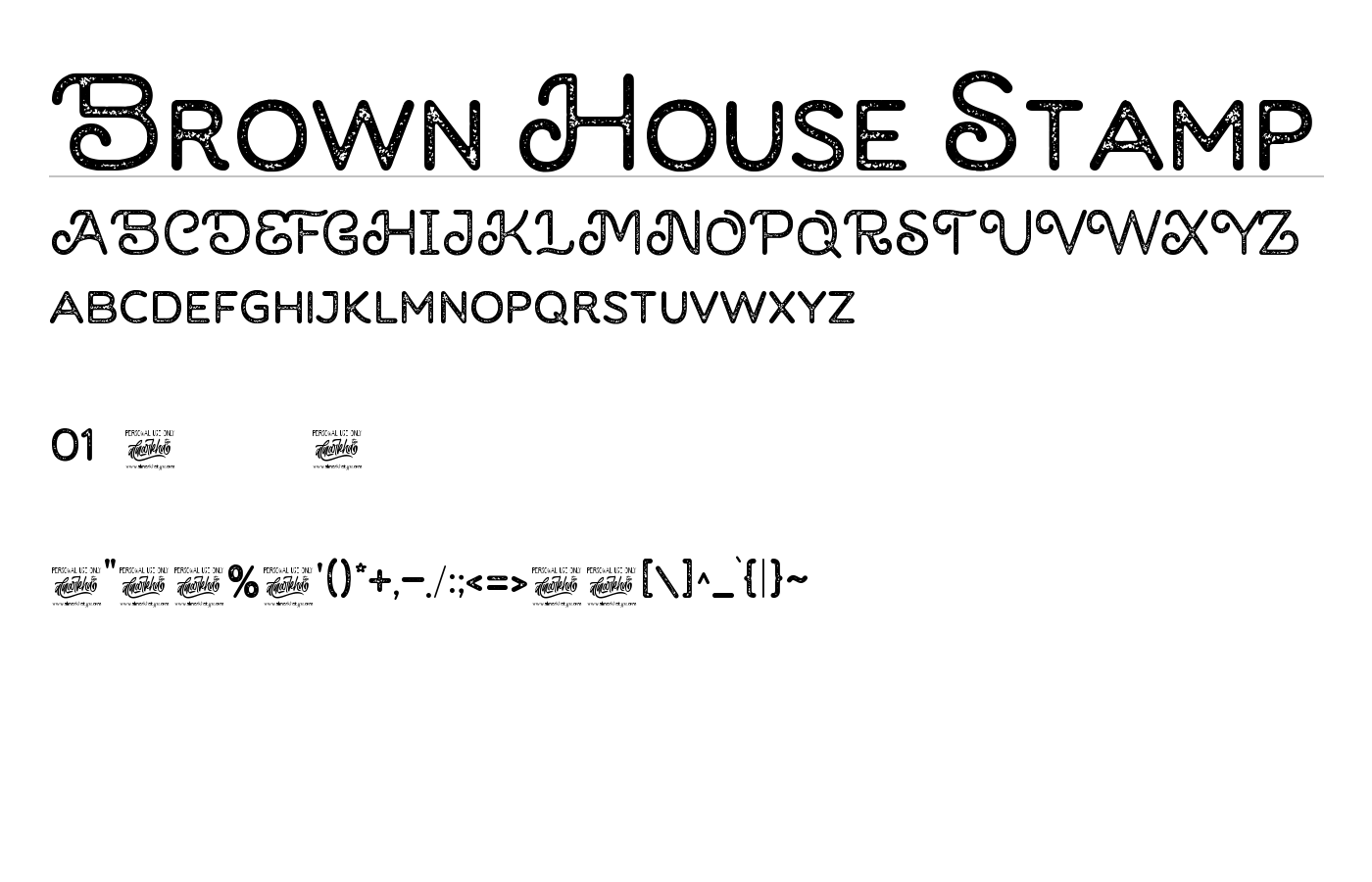
Brown House Font is a playful sans serif typeface with a hand-crafted, stamped texture that adds character and warmth. Its rounded shapes and subtle decorative curls give it a vintage, whimsical feel perfect for logos, packaging, and creative headlines where a unique, friendly personality is desired. This font works well in informal designs, providing a charming and approachable look that stands out.
Brown House Font
About Brown House Font